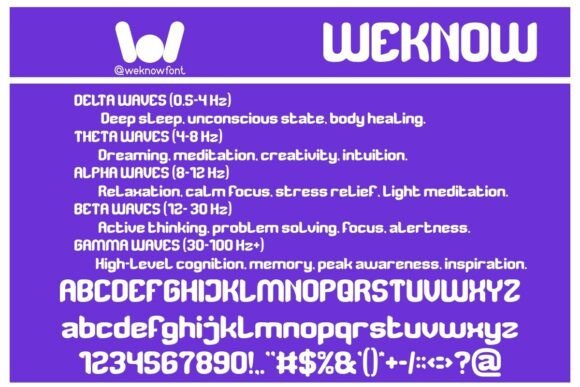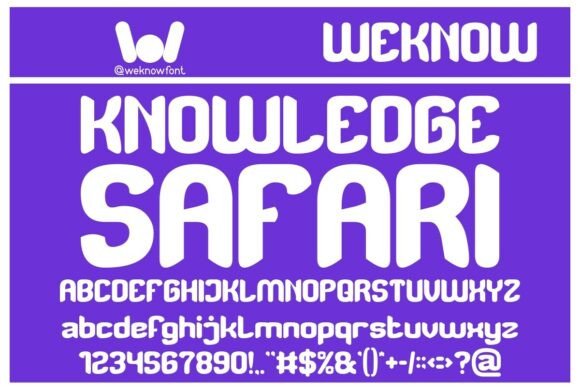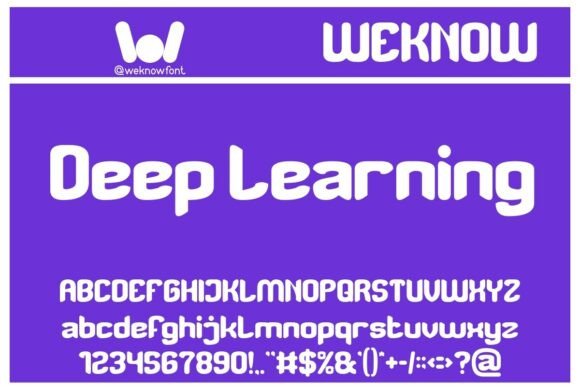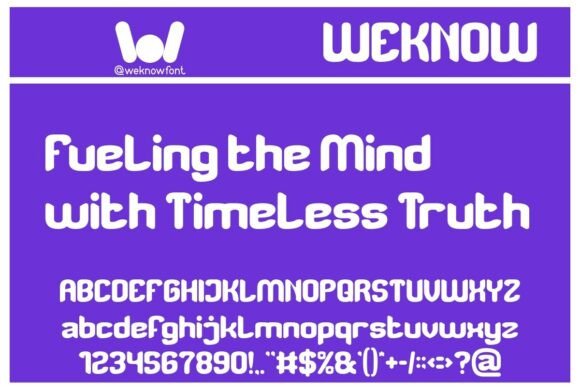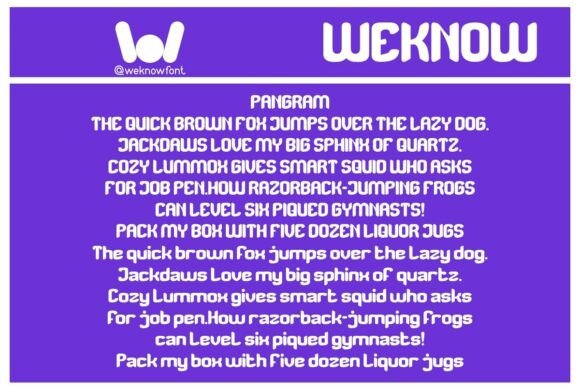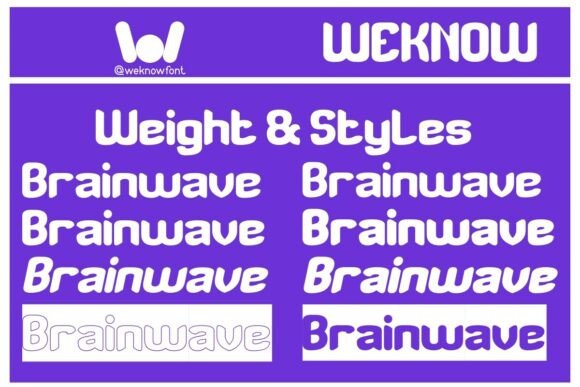
Discover the Retro-Futuristic Charm of Brainwave Font
Are you ready to inject a dose of nostalgia and modern flair into your designs? Look no further than Brainwave, a captivating geometric font that masterfully blends retro charm with contemporary style. This versatile typeface is poised to revolutionize your visual creations, whether you’re a designer, crafter, or simply a creative enthusiast.
The Birth of a Retro-Futuristic Icon
Brainwave is more than just a font – it’s an experience. Its soft, rounded curves and playful demeanor evoke the carefree spirit of a bygone arcade era, while its pulsating techno essence injects a modern, dynamic twist. This riveting geometric font is the perfect marriage of old-school charm and new-school style, making it an excellent choice for designers seeking to create visually striking projects.
Crafting Unforgettable Logos and Logotypes
When it comes to logo and logotype crafting, Brainwave is an unbeatable choice. Its unique blend of modern design and retro flair makes it an ideal fit for corporate and brand identities. With Brainwave, you can create memorable, eye-catching logos that leave a lasting impression on your audience. Whether you’re a startup or an established brand, this stellar font is sure to help you stand out in a crowded market.
Unleashing Versatility in Display Design
Brainwave is more than just a one-trick pony – it’s a dynamic display font that effortlessly adapts to a wide range of creative applications. From apparel designs and music cover art to movie posters, games, magazines, book covers, and comics, this bubbly font exudes versatility and playfulness. Whether you’re designing for print or digital media, Brainwave is the perfect choice for adding a touch of whimsy and personality to your projects.
Seamless Integration in the Digital Realm
In today’s digital age, it’s essential to have a font that works seamlessly across various platforms. Brainwave rises to the challenge, adding a hint of nostalgia and fun to your online creations. Use it to spice up your YouTube intros, Instagram stories, websites, and a multitude of other digital projects. With Brainwave, you can create engaging, shareable content that resonates with your audience.
Why Designers and Crafters Love Brainwave
So, what makes Brainwave a favorite among designers and crafters? Here are just a few reasons:
• Unique aesthetic: Brainwave’s retro-futuristic charm is unmatched, offering a refreshing alternative to more traditional fonts.
• Versatility: This dynamic font adapts effortlessly to various creative applications, from print to digital media.
• Playfulness: Brainwave’s soft, rounded curves and pulsating techno essence inject a playful touch into your designs.
• Memorability: With Brainwave, you can create logos, logotypes, and display designs that leave a lasting impression on your audience.
Dive into the Brainwave Experience
Ready to unlock the creative potential of Brainwave? Immerse yourself in the world of retro-futuristic design and discover a font that will take your projects to the next level. With Brainwave, you can:
• Revitalize your brand identity with a unique, memorable logo or logotype.
• Add a touch of whimsy to your digital creations, from social media posts to website headers.
• Create eye-catching display designs that capture the attention of your audience.
• Experiment with a wide range of creative applications, from print to digital media.
In conclusion, Brainwave is more than just a font – it’s a design experience. With its captivating blend of modern style and retro charm, this versatile typeface is poised to revolutionize your creative projects. Dive into the Brainwave experience today and watch your design ideas come to life!